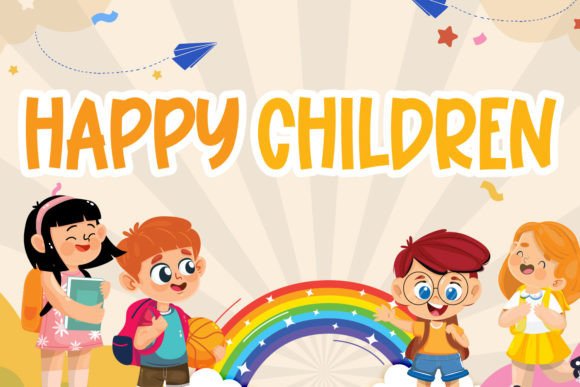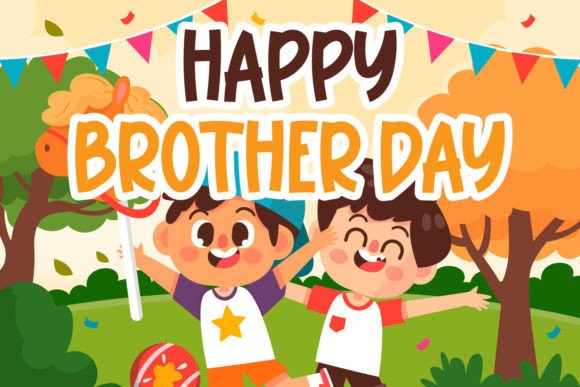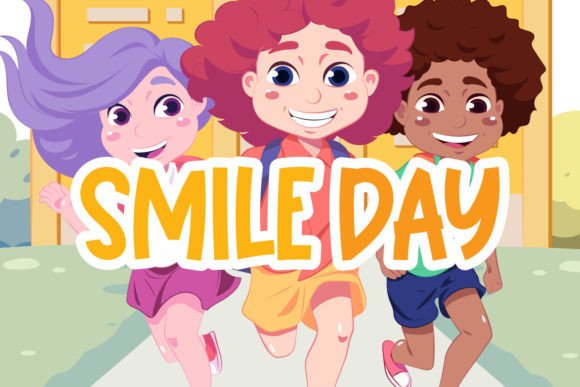
Getting Back to Basics: The Charm of the Back to School Font
As a designer, do you ever find yourself rummaging through your font collection, searching for the perfect one to capture the essence of a particular project? Maybe you’re working on a design for a kid’s birthday party, and you need a font that screams ‘fun’ and ‘playful’. I know I do! And that’s exactly when I stumbled upon the Back to School Font – a delightful display font that’s perfect for any project that requires a touch of whimsy.
This charming font is designed to evoke the nostalgia of back to school season, making it an ideal choice for projects centered around education, kids, and summer vibes. Whether you’re creating digital designs, presentations, crafts, or greeting cards, the Back to School Font has the potential to become your new go-to font. Its versatility and cuteness make it a valuable addition to any designer’s toolkit.
Back to School Font Key Features
- Font Family: A custom-designed font family with a playful, educational theme.
- Unique Characteristics: Features a distinctive, hand-drawn style with subtle texture and imperfections, giving it a personal touch.
Designer Review: “Back to School Font”
Overall, I think “Back to School Font” is a fun and playful font that captures the spirit of the season. Here are some things that work well:
- ✨ Its bold and colorful design is perfect for creating eye-catching headlines and titles.
- ✨ The font’s irregular shape and rounded edges give it a friendly, approachable feel that’s great for educational materials and kids’ content.
- ✨ The font is highly legible, even at small sizes, making it a great choice for body text and captions.
- ⚠️ The font’s bold design can make it difficult to read at very large sizes, where the characters may become too ornate and distracting.
- ⚠️ The font may not be suitable for formal or professional contexts, where a more traditional or conservative font is preferred.
Overall, I think “Back to School Font” is a great choice for designers working on educational or kids’ content, but may not be the best fit for every project. With a little creativity and restraint, it can add a lot of personality and fun to your designs.
“Back to School Font” is commonly used for:
- School flyers and posters
- Back to school announcements and invitations
- Education-themed social media graphics
- Academic presentations and reports
Alternatives to “Back to School Font” for Designers
Comic Sans MS is a sans-serif font designed to resemble handwritten text. It’s ideal for informal documents, such as personal letters, memos, or children’s educational materials. However, its casual nature makes it less suitable for formal or professional designs. Compared to Back to School Font, Comic Sans MS has a more relaxed feel and is often associated with a younger audience.
Great Vibes is a modern script font that conveys a sense of friendliness and approachability. It’s suitable for use in headings, titles, or short paragraphs where a touch of elegance is needed. Unlike Back to School Font, Great Vibes has a more refined and sophisticated appearance, making it a better choice for high-end designs or corporate materials.